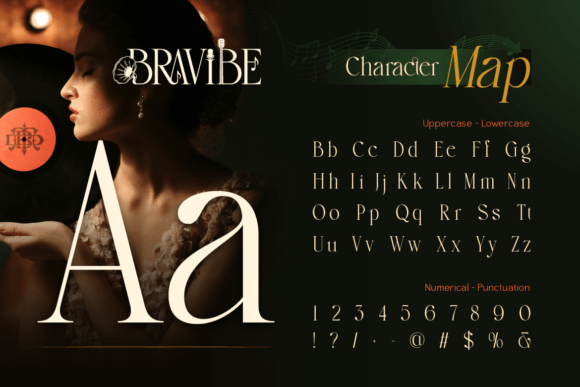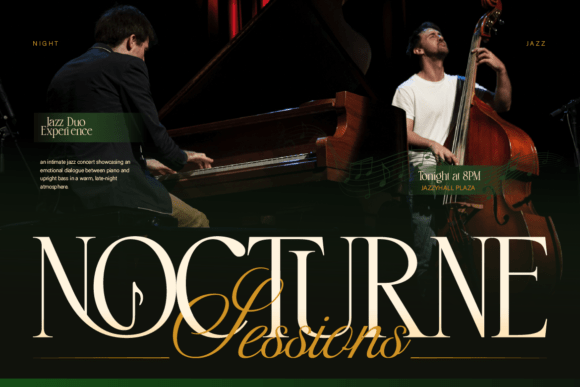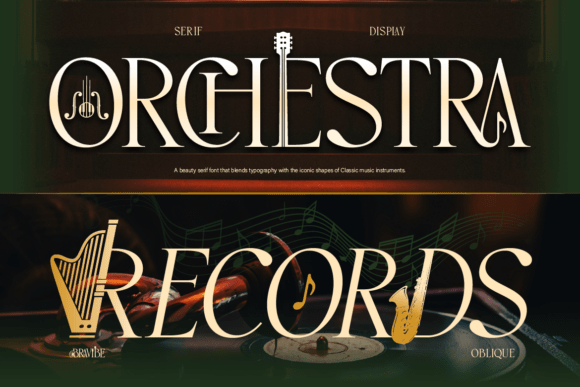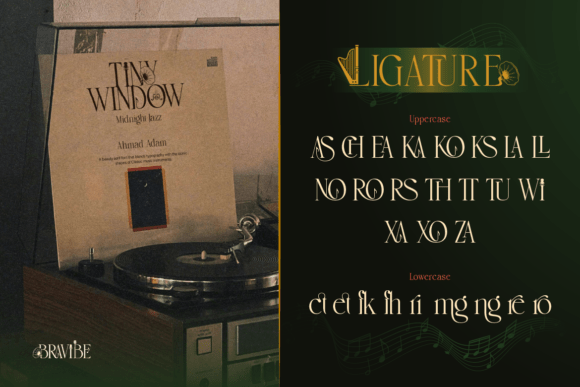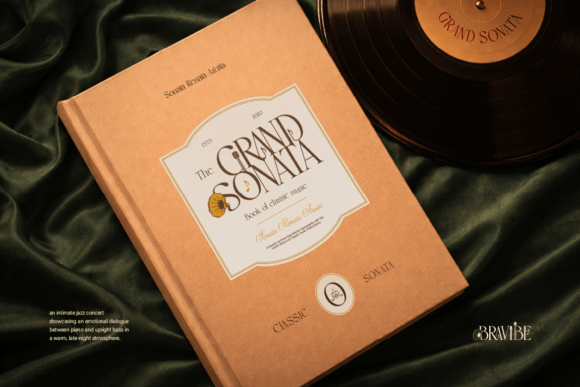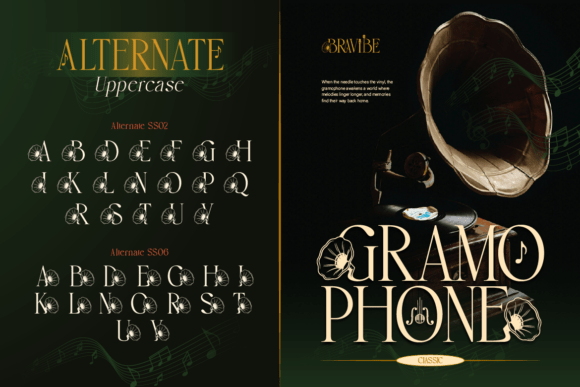
The Ultimate Jazz-Inspired Font: Bravibe
Imagine a dimly lit jazz bar, the soft glow of golden lights, and the smooth sound of a saxophone filling the air. That timeless atmosphere is exactly what the Bravibe font brings into your design. As a designer, I’ve had my fair share of struggles finding the perfect font for a project. I recall working on a jazz festival poster, determined to capture the essence of the genre. After hours of scrolling through font libraries, I stumbled upon Bravibe – and it was love at first sight! ✨
A Sophisticated Serif Display Font
Bravibe is a sophisticated serif display font inspired by the beauty of classic music instruments and the soulful essence of jazz. Every letter is crafted with unique artistic details, featuring subtle elements like saxophones, harps, and musical notes, creating a harmonious blend between typography and rhythm. Its elegant curves and high-contrast strokes give a luxurious and editorial feel, while the decorative touches add personality and storytelling to every word.
Perfect for Creative Projects
Bravibe is designed to stand out and is perfect for various creative projects, including:
• Music event posters & jazz festival branding
• Luxury logos & high-end branding
• Editorial layouts & magazine covers
• Album artwork & vintage-inspired designs
• Wedding invitations & classy packaging
Features
Bravibe comes with an impressive set of features, including:
• A – Z set (Uppercase & Lowercase)
• Numbers
• Punctuation
• Alternates
Here’s what I love about Bravibe:
• ✨ Unique artistic details that add a touch of personality to every letter
• ✅ Elegant curves and high-contrast strokes for a luxurious feel
• ✅ Decorative touches that add storytelling to every word
• ✅ Perfect for jazz-inspired designs, music events, and luxury branding
And here are some small quirks to keep in mind:
• ⚠️ Limited use in body text due to its decorative nature
• 🤔 May require some adjustments for optimal kerning
The creator of Bravibe drew inspiration from the timeless atmosphere of a jazz bar, where the smooth sounds of a saxophone fill the air. With a passion for typography and music, the designer aimed to craft a font that would capture the essence of jazz and bring it to life in every design.
What is Bravibe font? Bravibe is a sophisticated serif display font inspired by the beauty of classic music instruments and the soulful essence of jazz.